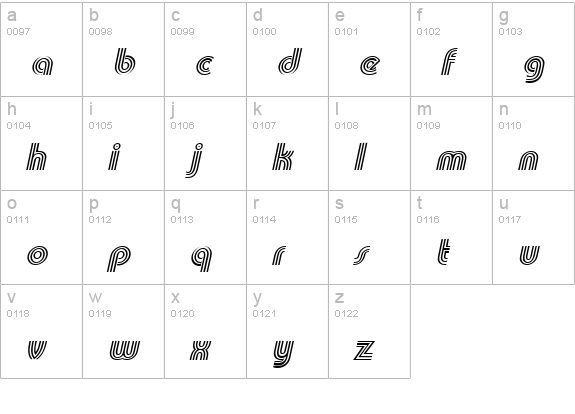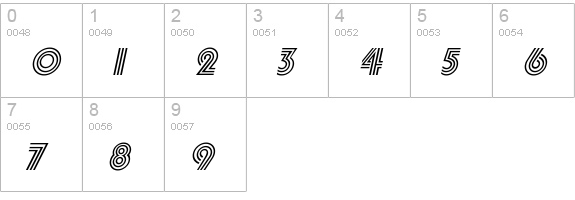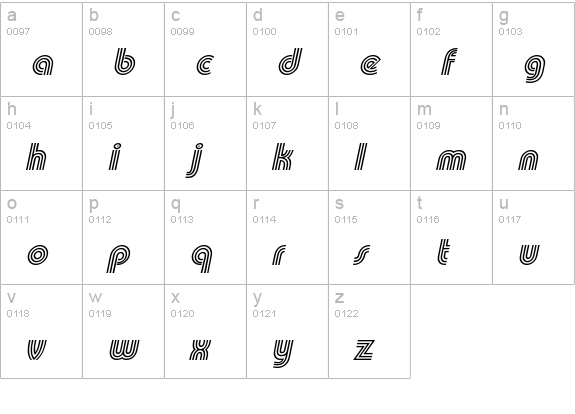
Triplee Slanted Font Details
Introducing Triplee Slanted Font, the perfect blend of elegance and modernity. This free typeface is designed with a unique slanted angle, adding a touch of sophistication to any project. Triplee Slanted Font is versatile and can be used for a wide range of designs, from logos and branding to headlines and editorial layouts. With its clean and sleek lines, Triplee Slanted Font brings a sense of professionalism and professionalism to any design. Its carefully crafted letterforms ensure legibility without compromising on style. The slanted angle of the font adds a dynamic and energetic feel, making it perfect for projects that need a little extra flair. Triplee Slanted Font is freely available to download at FontsMarket.com, allowing designers and creatives to access this stunning font without any cost. With its open license, this font can be used for personal and commercial projects, making it an ideal choice for designers on a tight budget. Whether you're designing a website, creating a magazine layout, or crafting a striking poster, Triplee Slanted Font will enhance your work and make it stand out. Its versatility and eye-catching appeal make it a go-to choice for designers looking to make an impact. Download Triplee Slanted Font today from FontsMarket.com and experience the freedom of creativity. With this font at your fingertips, you'll have the power to elevate your designs and captivate your audience. Don't miss out on this opportunity to enhance your design arsenal with this stunning and freely available typeface.